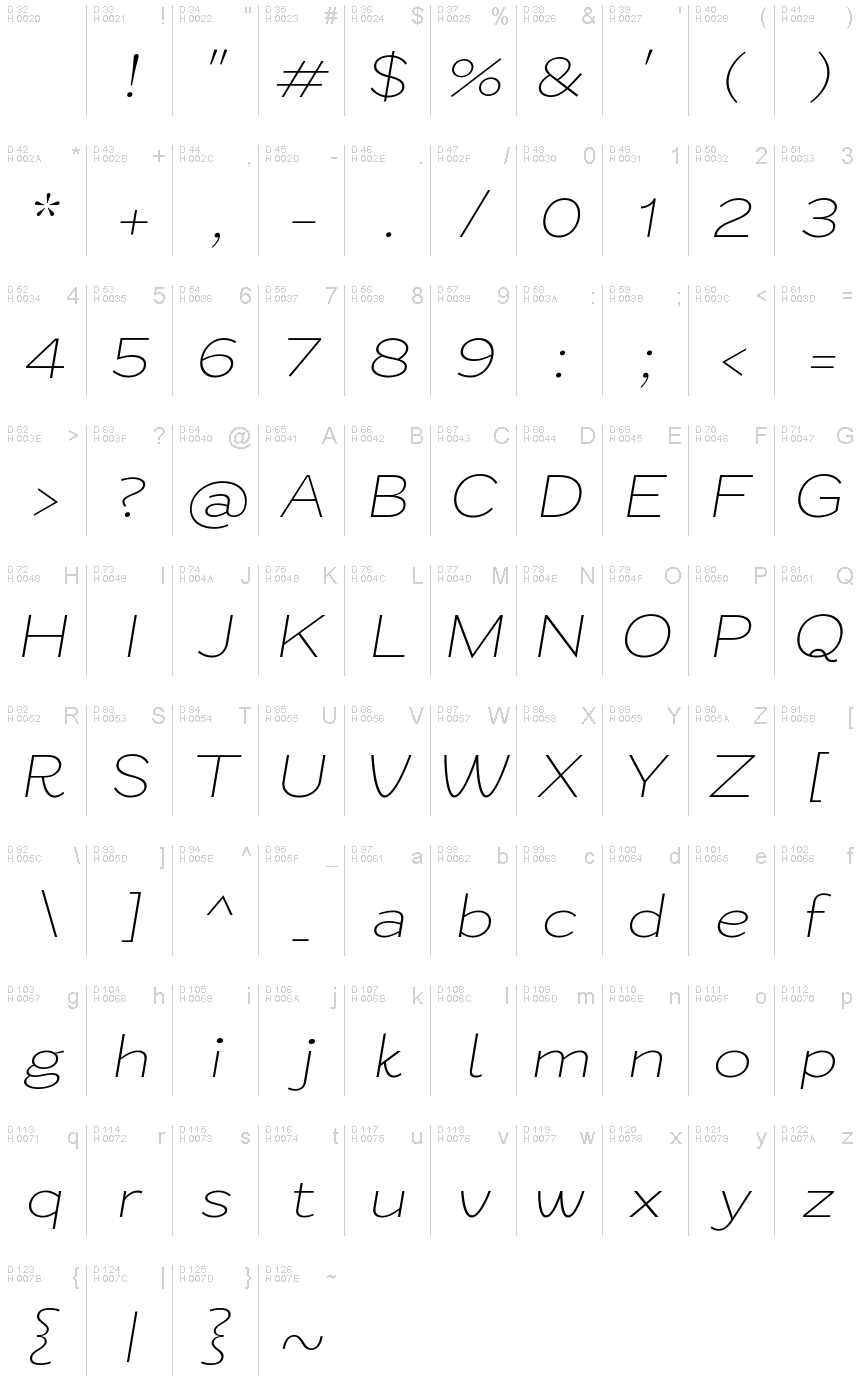
Zt Nezto DEMO Thin Italic
Zt Nezto, a creation by designer Khaiuns, exudes an elegant and refined aesthetic. This light, sans-serif font captivates with its meticulously crafted curves, lending an air of sophistication and modern flair. The delicate weight and graceful stroke transitions evoke a sense of refinement, making Zt Nezto an alluring choice for a variety of design applications.
The versatility of Zt Nezto shines through its ability to seamlessly integrate into diverse design contexts. From editorial layouts and branding projects to packaging designs and digital interfaces, this font's refined simplicity and harmonious forms can elevate the overall aesthetic, imbuing a touch of timeless elegance wherever it is applied.